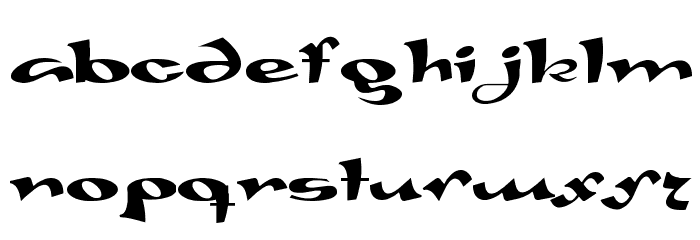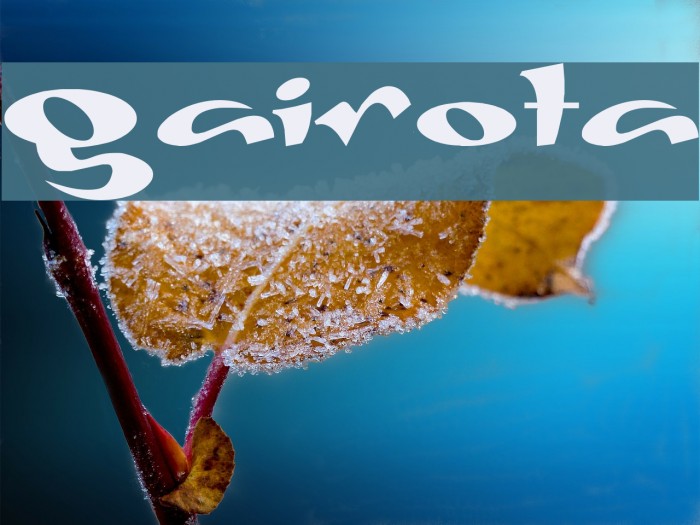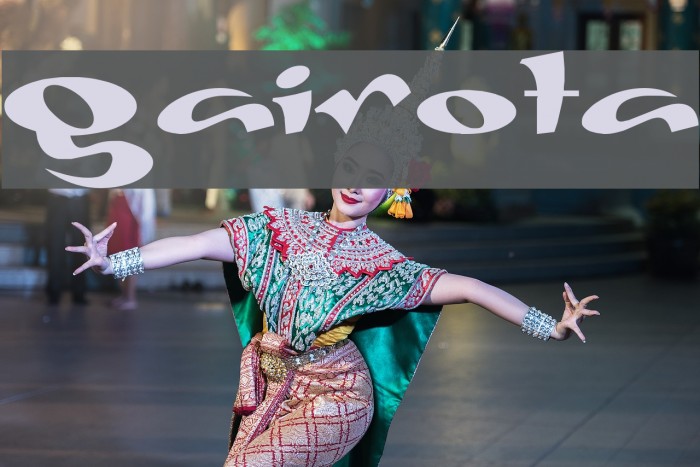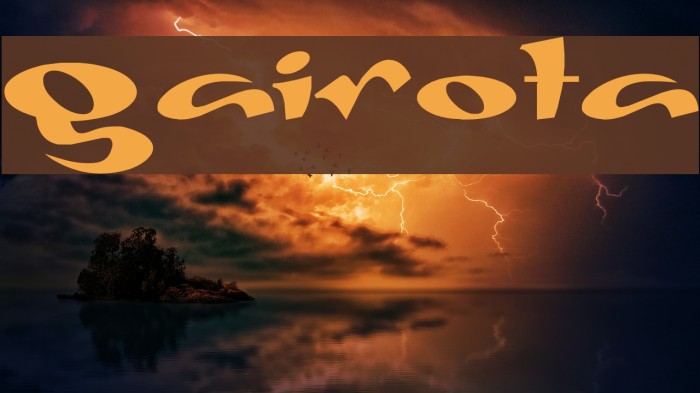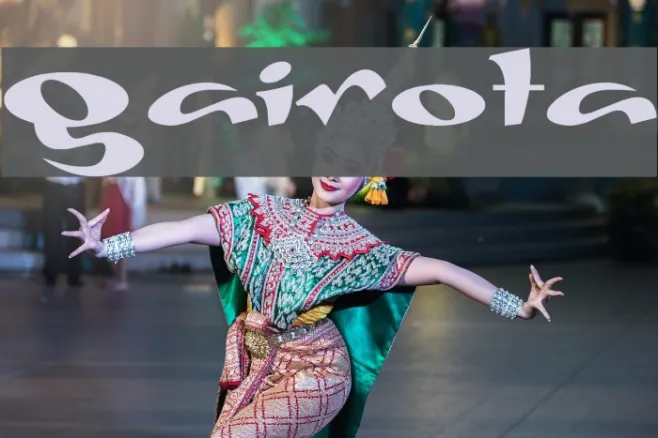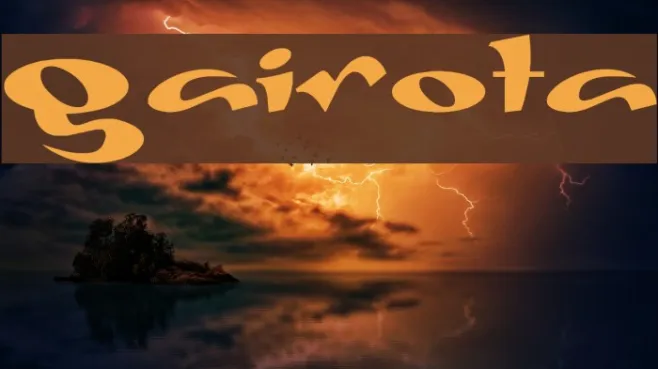
Gaivota Font
This font features a unique and artistic design, characterized by its bold and dynamic strokes. The letters exhibit a playful and whimsical style, with exaggerated curves and angles that give it a distinctive flair. The font's overall appearance is both modern and expressive, making it stand out in any design. Its boldness is complemented by a medium contrast in stroke thickness, adding to its visual impact. The character spacing is relatively tight, which enhances its cohesive look. This font is ideal for creative projects that require a touch of personality and artistic expression.
A bold, artistic font with dynamic strokes and a whimsical style.
- Proposed Projects: Ideal for branding, posters, artistic projects, and creative headlines.
- Character Spacing: Tight
- Overall Style: Modern, Artistic